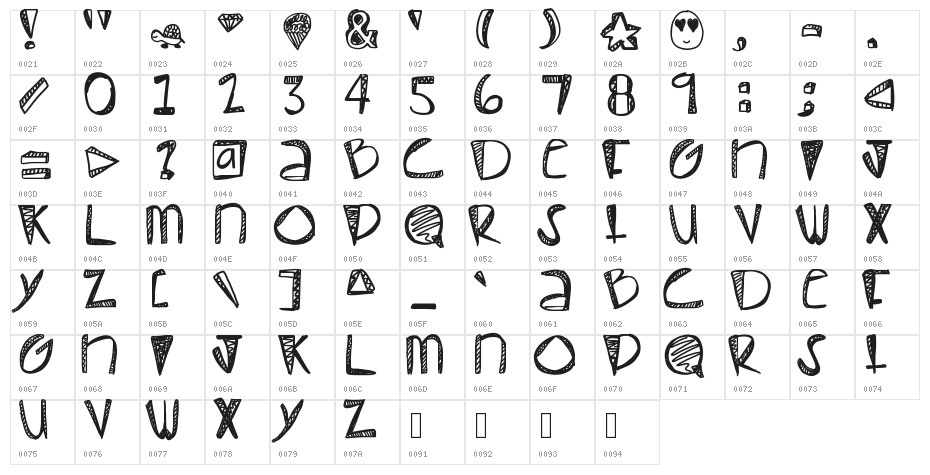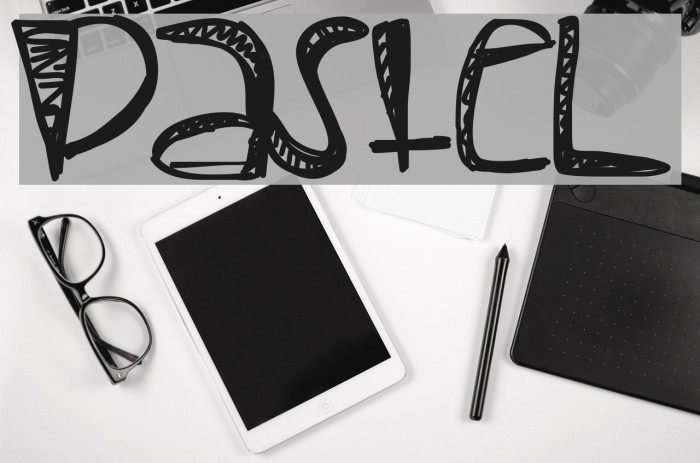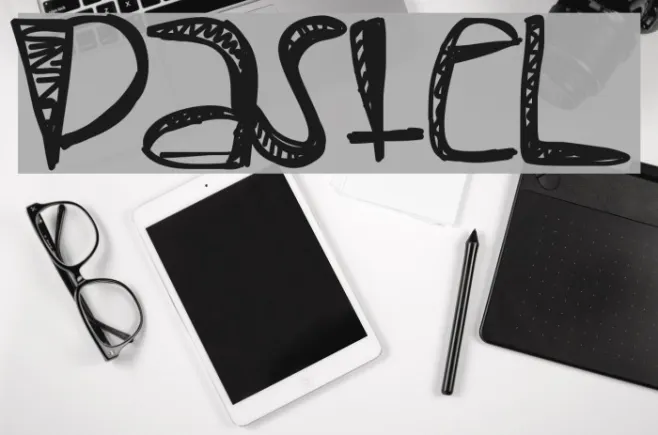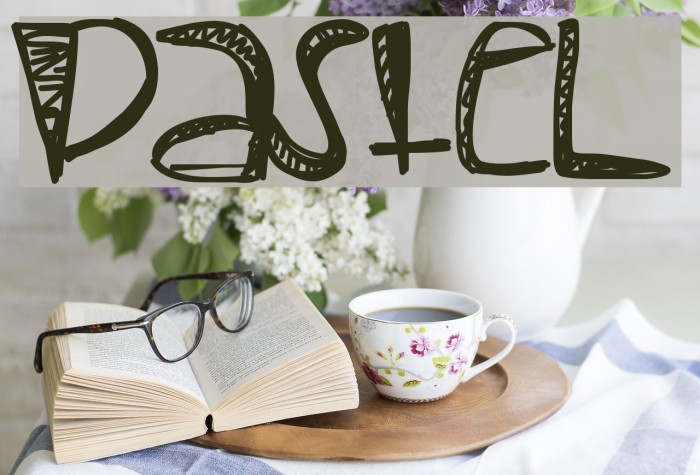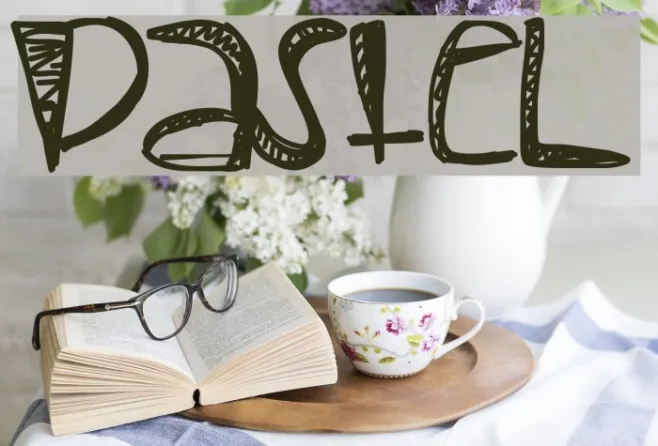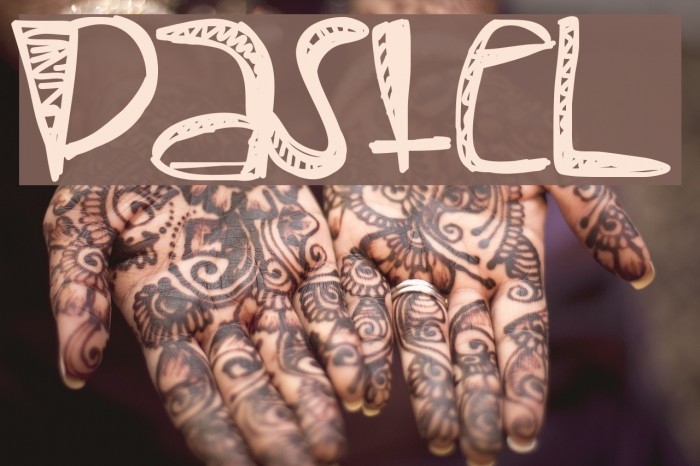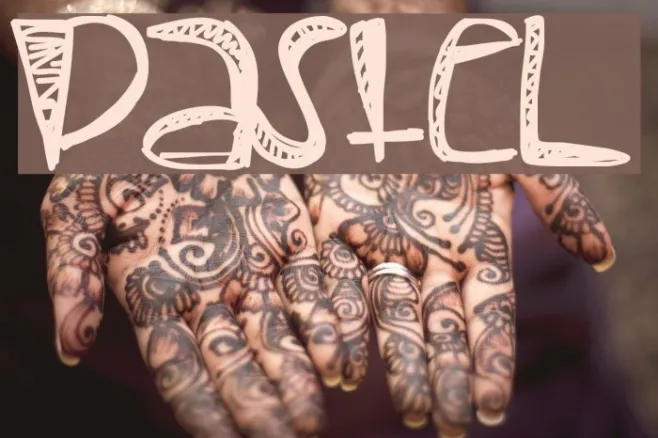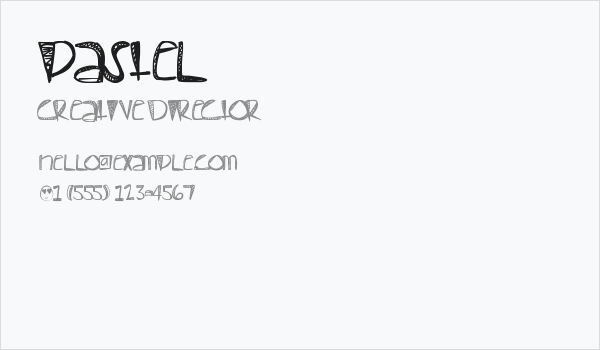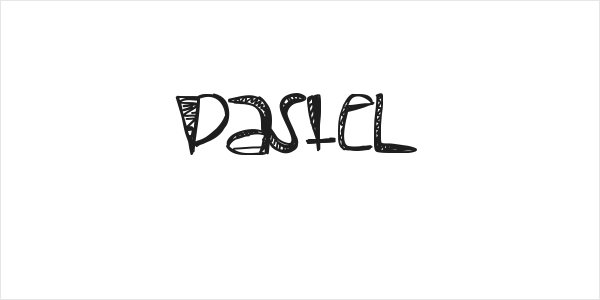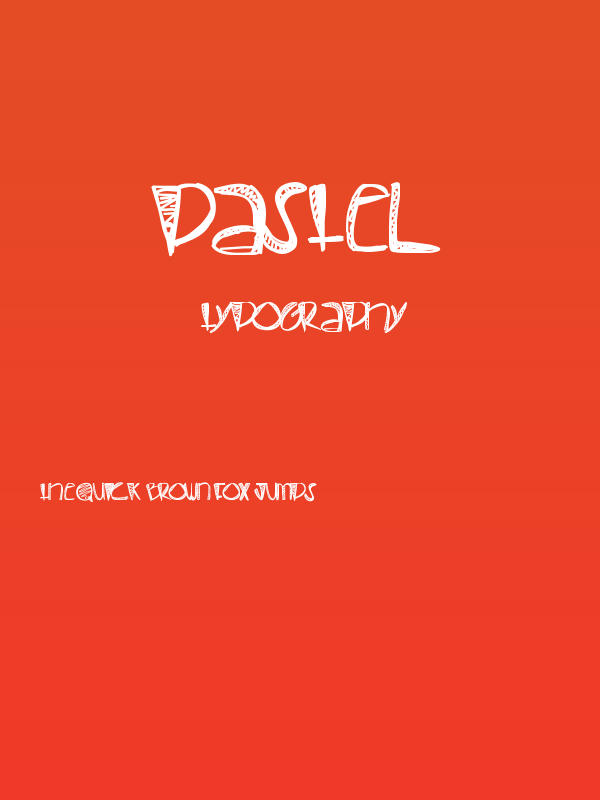
Pastel Font
Pastel Description
This playful and whimsical font features a hand-drawn style with a mix of bold and thin strokes, creating a lively and dynamic appearance. Each character is uniquely designed with decorative elements, such as stripes and dots, adding a sense of fun and creativity. The uppercase and lowercase letters maintain a consistent style, while the numbers and special characters are equally expressive, making this font ideal for projects that require a touch of personality and flair.
| Overall Style | Whimsical, Playful |
| Proposed Projects | Ideal for children's books, playful branding, creative posters, and fun invitations. |